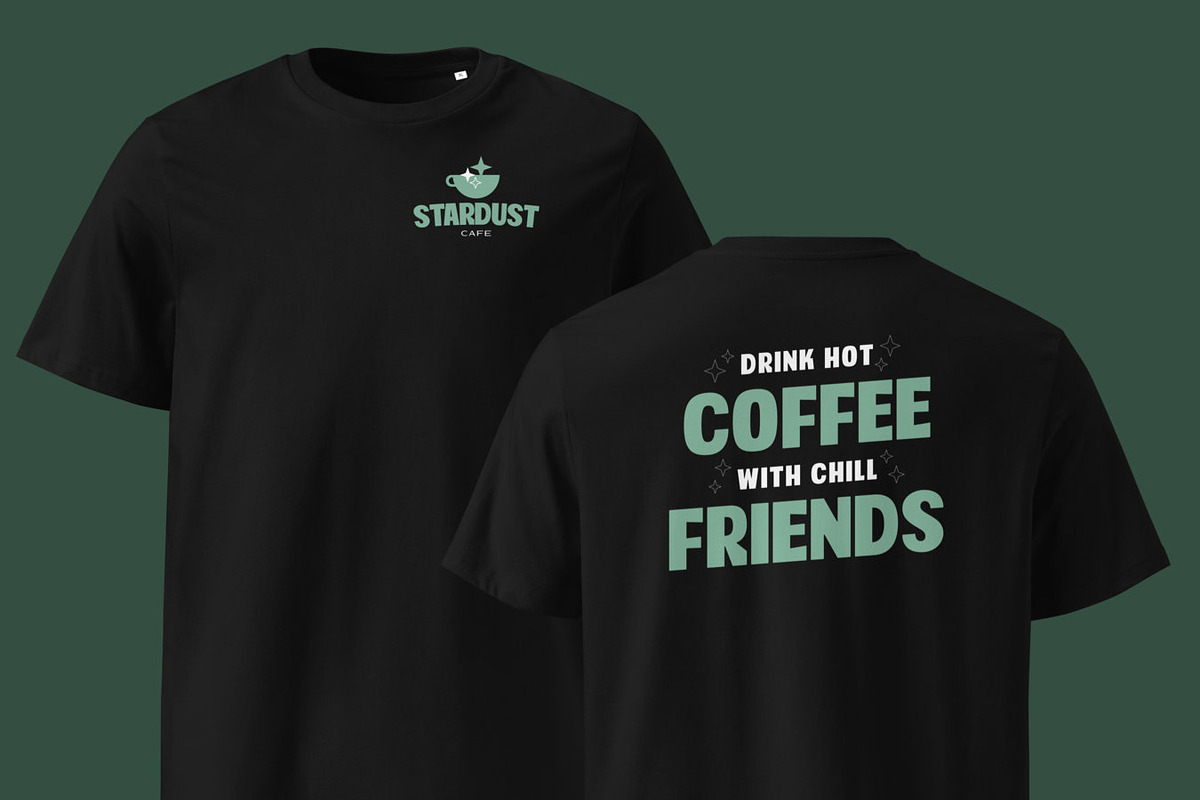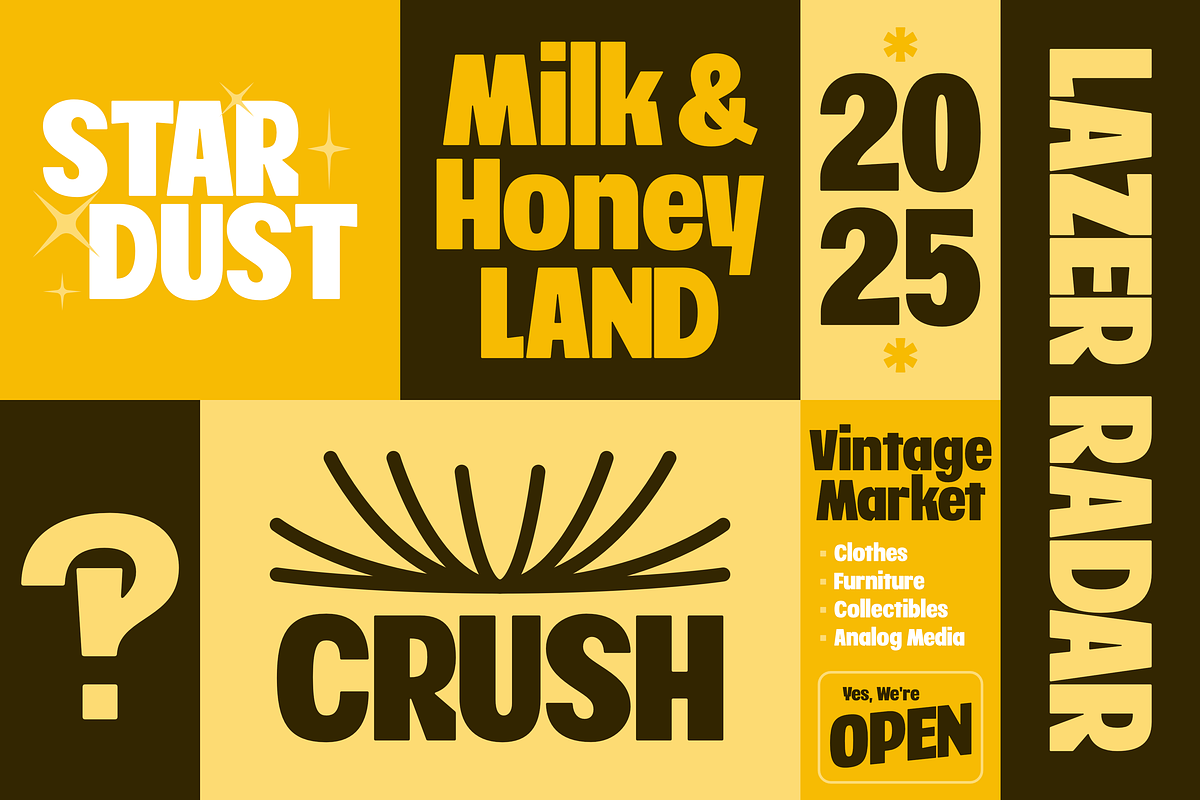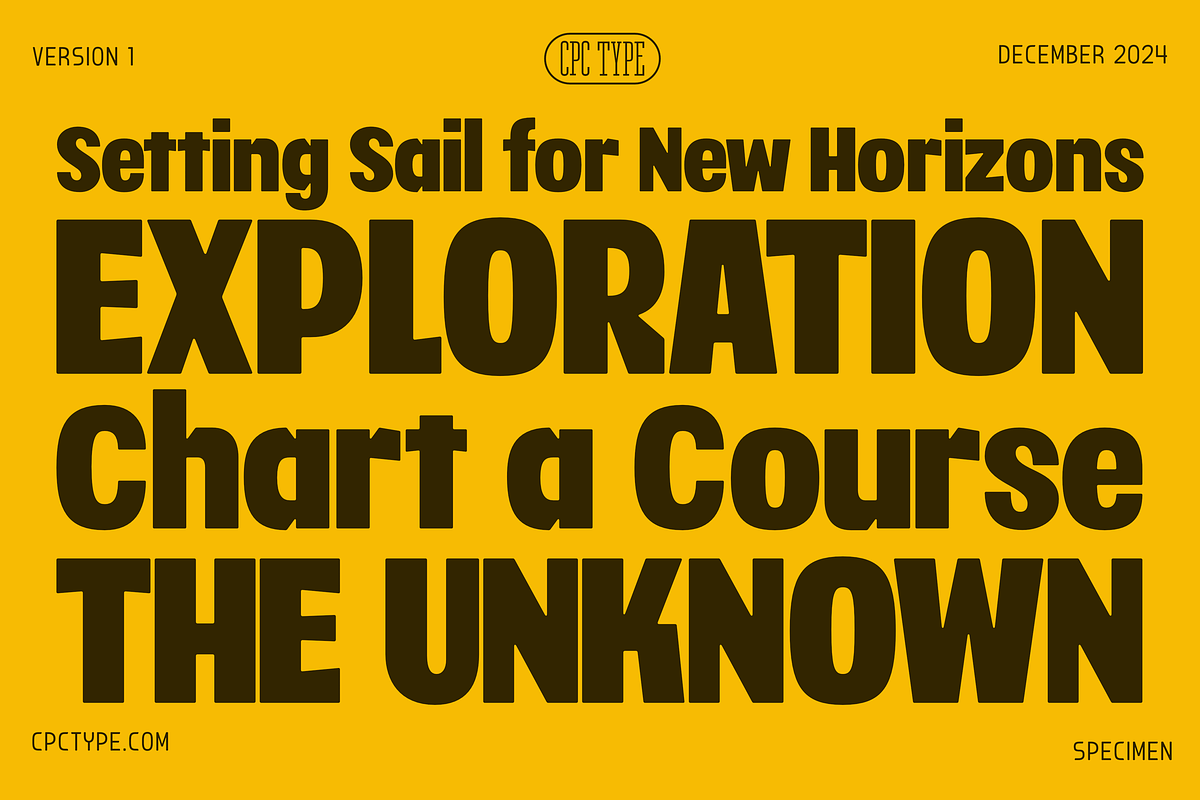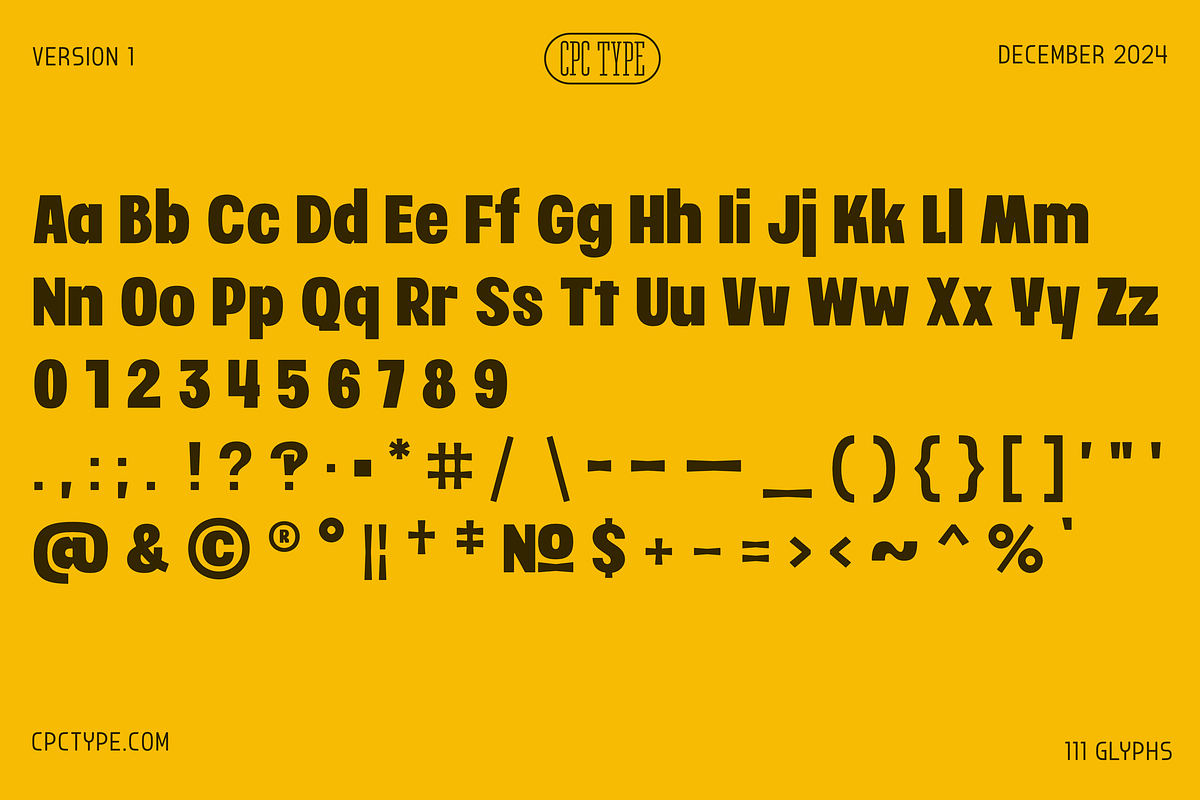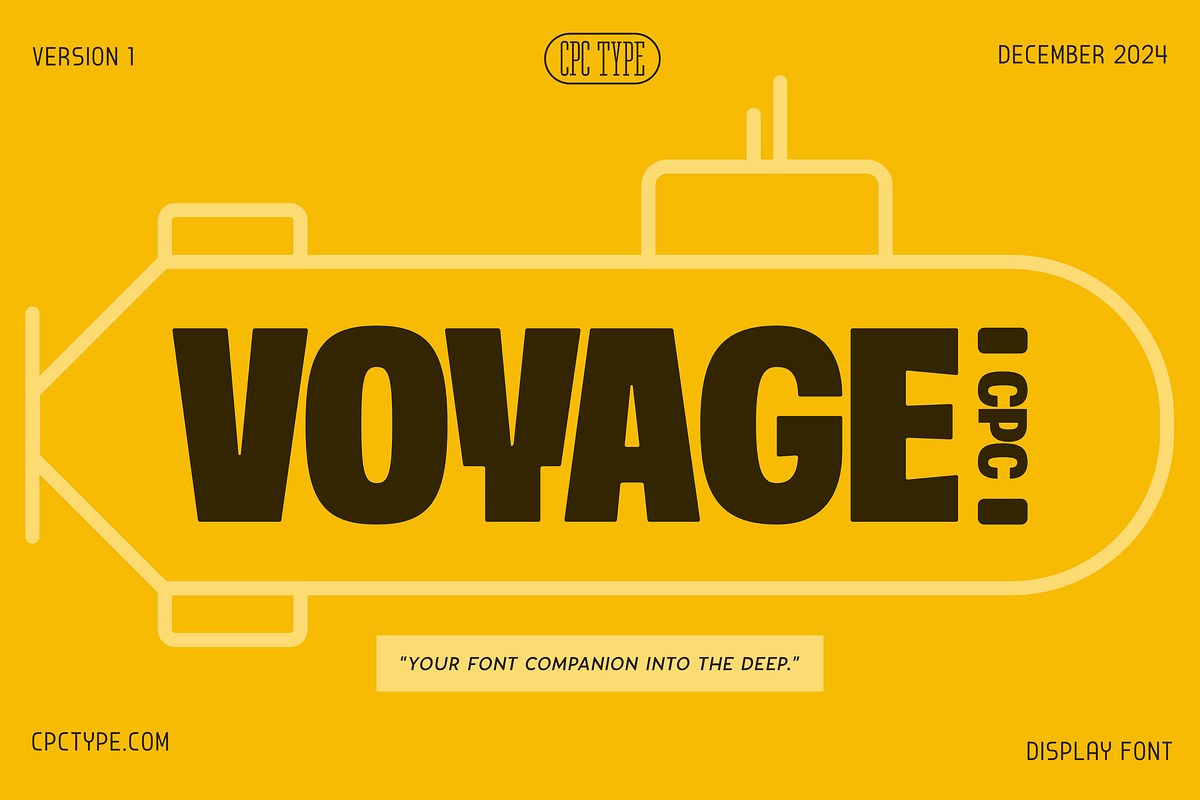
Voyage CPC
Your font companion into the deep.
Voyage CPC is perfect for making a bold statement in signage, and its personality shines bright enough to make it a great choice for logos, too!
Glyphs
- 111 glyphs
- Uppercase and lowercase glyphs
- Numbers, symbols, and punctuations
Ideas for Usage
- Your storefront messages
- Highway billboards telling people to "EXIT NOW!"
- Surprise birthday sign banner
- Sports team jersey numbers